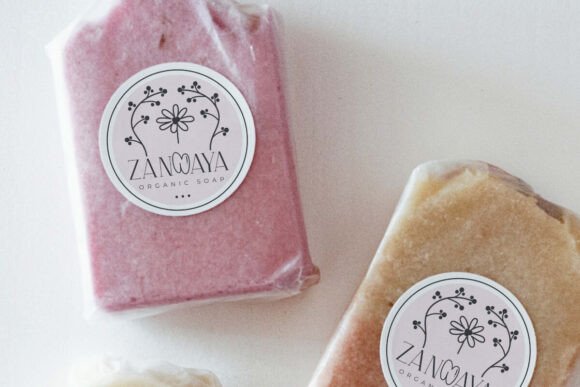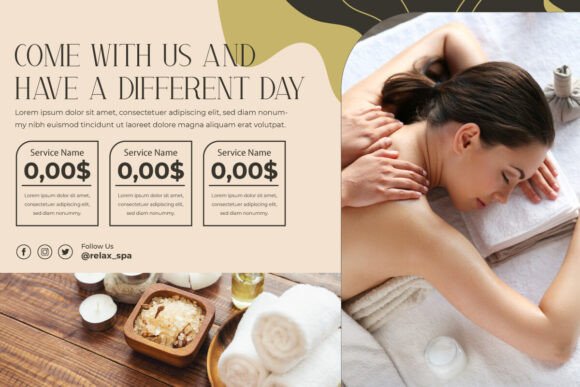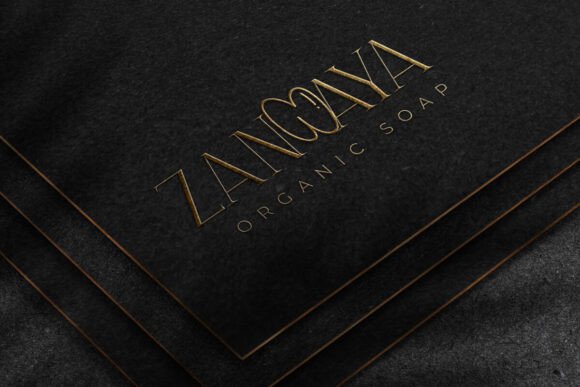
Bring Bubble Font
Bring Bubble Font is a font duo with playful fun balloon and bubble theme. This font has two different display characters, there is cartoon type with bubbles and serif. It will be good for any designs, such as brand image, custom design, invitation, label, magazine, poster, product packaging, quote, signage, stationery, website page, and more!